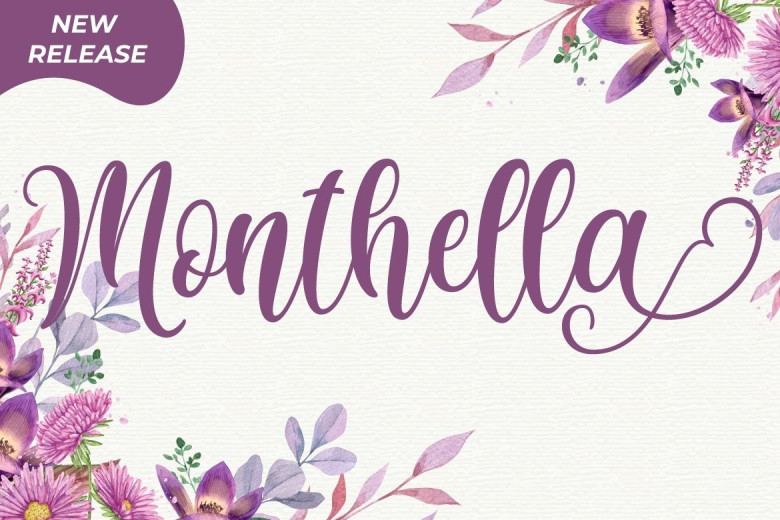
Monthella Calligraphy Script Typeface
Monthella Calligraphy Font is a beautiful and elegant script typeface. Fall in love with its authentic feel and use it to create gorgeous wedding invitations, beautiful stationary art, eye-catching social media posts, and cute greeting cards.
This font is PUA encoded which means you can access all of the cute glyphs and swashes with ease! It also features a wealth of special features including alternate glyphs and ligatures. This font is suitable for any design like branding, quotes and etc. I hope you enjoy it !! Thanks for visiting and downloading my font!